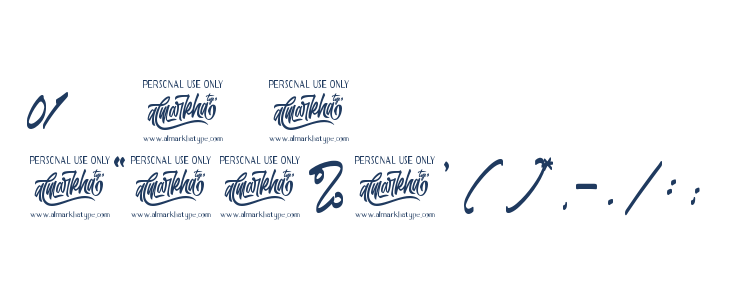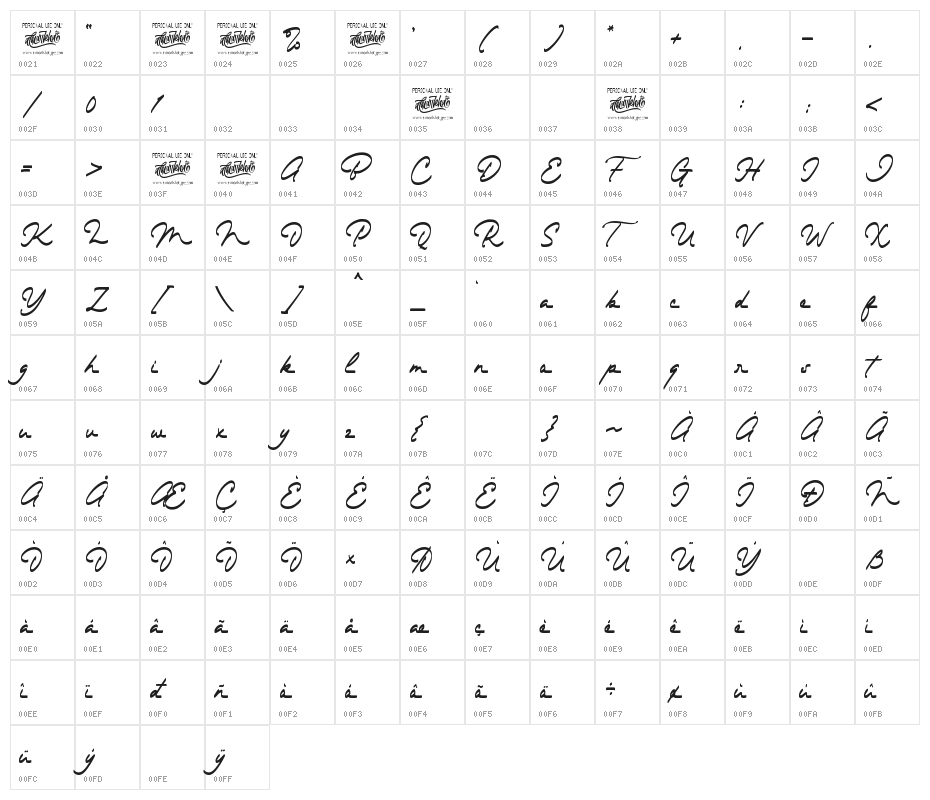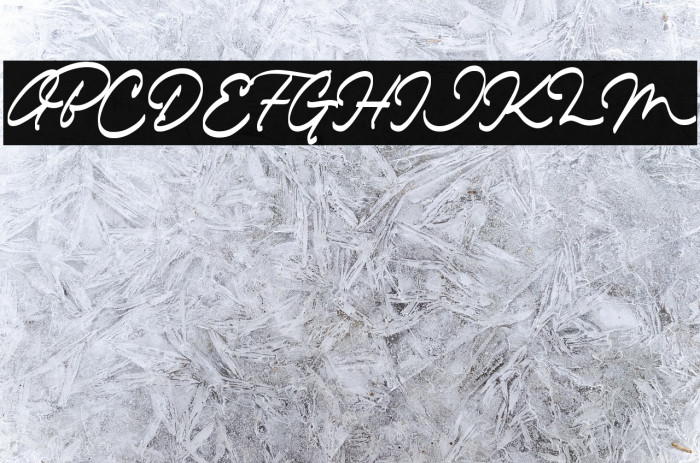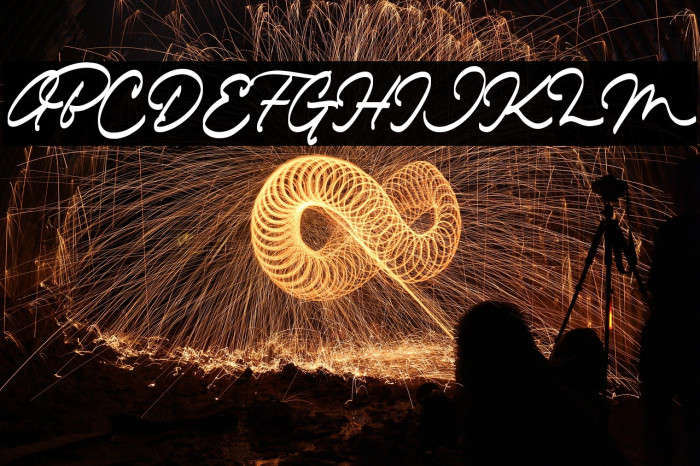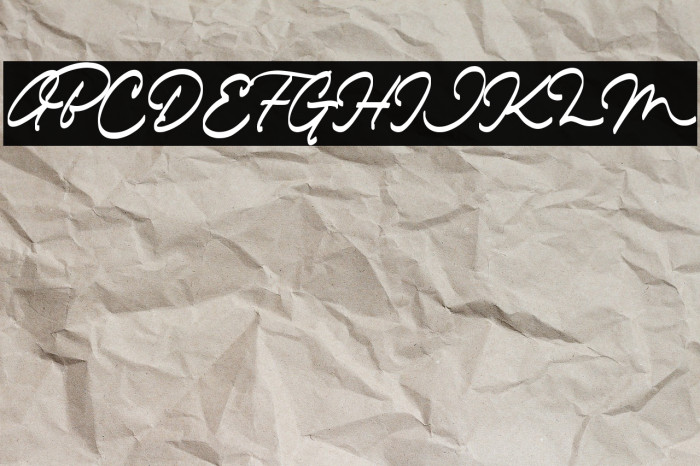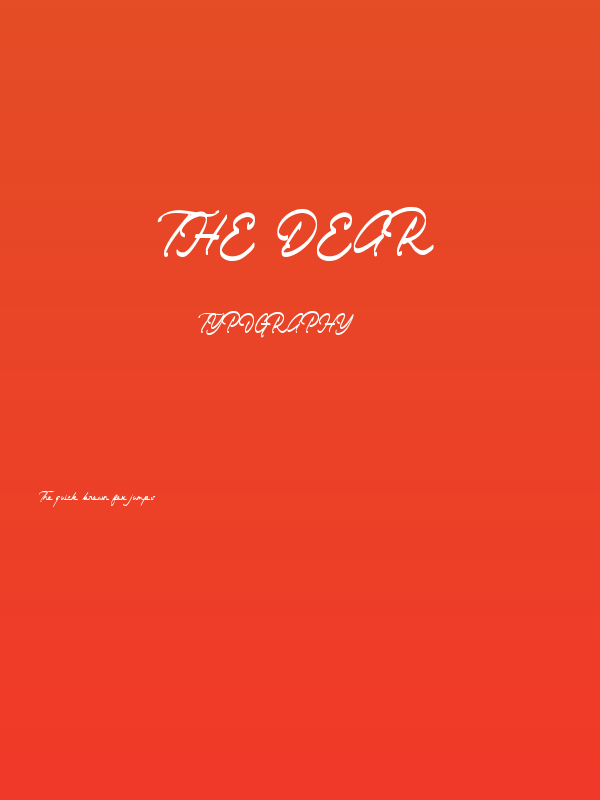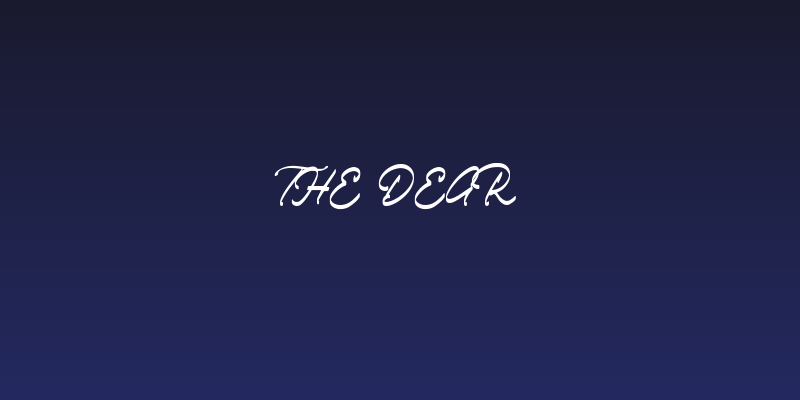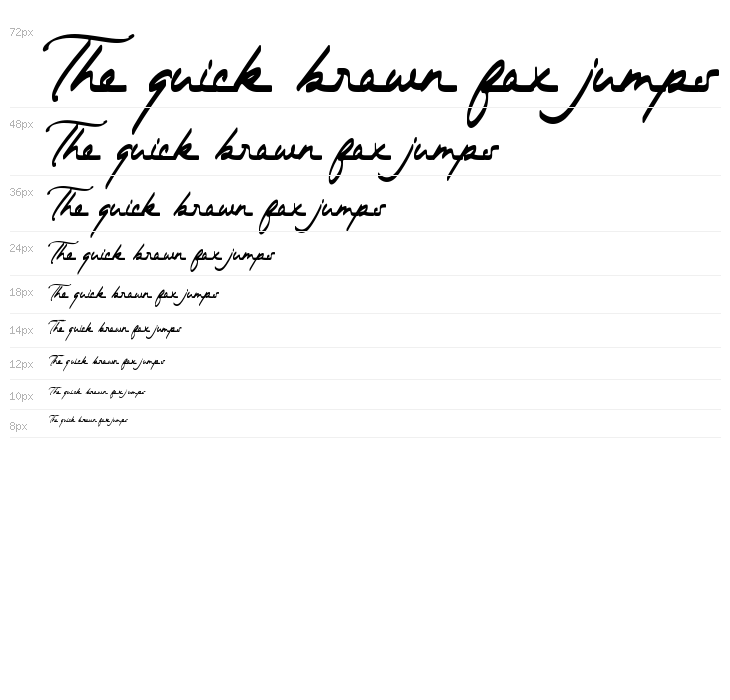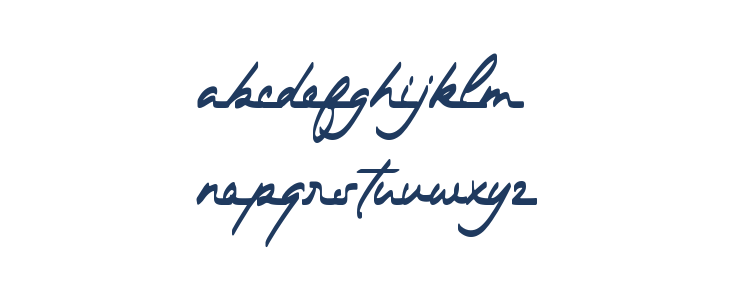
The Dear Font
The Dear Description
This font features a flowing, cursive style with elegant loops and swashes, reminiscent of traditional calligraphy. The uppercase letters are bold and expressive, while the lowercase letters maintain a consistent fluidity, enhancing readability. The numerals are distinct and maintain the cursive theme, adding a touch of sophistication. Special characters are creatively integrated, maintaining the overall aesthetic. This font is ideal for projects that require a personal, handwritten touch, such as invitations, greeting cards, or branding materials.
| Proposed Projects | Ideal for invitations, greeting cards, branding materials, and personal projects. |